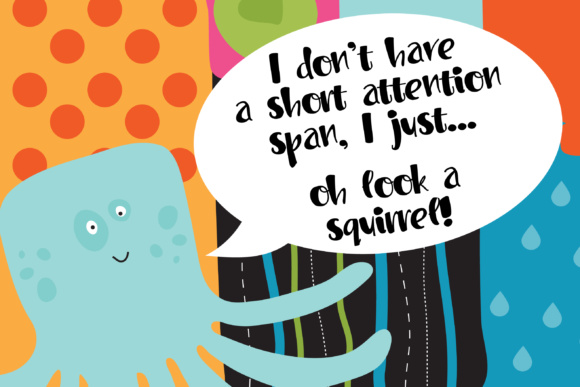
PN Octopus Socks Font: A Fun and Whimsical Hand-Drawn Font
The PN Octopus Socks Font is a unique and playful font that has gained popularity among designers and crafty enthusiasts. This fun and whimsical font is hand-drawn and has an interesting mix of thick and thin lines, making it perfect for a variety of creative projects. In this article, we’ll dive deeper into the world of PN Octopus Socks Font, exploring its features, uses, and benefits.
Key Features of PN Octopus Socks Font
- Hand-drawn design: The PN Octopus Socks Font is carefully crafted by hand, giving it a personal and distinctive touch.
- Mix of thick and thin lines: The font features a mix of thick and thin lines, creating a visually appealing and dynamic effect.
- Whimsical style: The font has a playful and whimsical style, making it perfect for projects that require a touch of fun and personality.
- Unique character set: The font includes a unique character set, ensuring that your designs stand out from the crowd.
Uses of PN Octopus Socks Font
The PN Octopus Socks Font is versatile and can be used in a variety of creative projects, including:
- Graphic design: Use the font to create eye-catching posters, flyers, and brochures.
- Crafting: The font is perfect for crafty enthusiasts who want to add a personal touch to their projects, such as handmade cards, gift tags, and scrapbooking.
- Digital art: The font can be used to create digital art, such as illustrations, comics, and animations.
- Web design: Use the font to add a touch of personality to your website or blog.
Benefits of Using PN Octopus Socks Font
There are several benefits to using the PN Octopus Socks Font in your creative projects:
- Unique and distinctive: The font’s hand-drawn design and mix of thick and thin lines make it stand out from other fonts.
- Playful and whimsical: The font’s playful style adds a touch of fun and personality to your designs.
- Versatile: The font can be used in a variety of creative projects, from graphic design to crafting.
- Easy to read: Despite its playful style, the font is easy to read, making it perfect for body text and headlines.
Tips and Tricks for Using PN Octopus Socks Font
Here are some tips and tricks for getting the most out of the PN Octopus Socks Font:
- Experiment with font sizes: The font looks great in a variety of font sizes, from small to large.
- Pair with other fonts: The font pairs well with other fonts, such as sans-serif and serif fonts.
- Use in combination with images: The font looks great when used in combination with images, such as illustrations and photographs.
- Customize the font: You can customize the font to fit your needs, such as changing the color and font style.
Font Pairing Suggestions
Here are some font pairing suggestions for the PN Octopus Socks Font:
- Open Sans: A clean and modern sans-serif font that pairs well with the playful PN Octopus Socks Font.
- Lato: A sleek and elegant sans-serif font that complements the PN Octopus Socks Font.
- Merriweather: A classic serif font that pairs well with the playful PN Octopus Socks Font.
The PN Octopus Socks Font is a unique and playful font that can add a touch of personality to your creative projects. With its hand-drawn design, mix of thick and thin lines, and whimsical style, it’s perfect for a variety of uses, from graphic design to crafting. By following the tips and tricks outlined in this article, you can get the most out of the PN Octopus Socks Font and create stunning designs that stand out from the crowd.